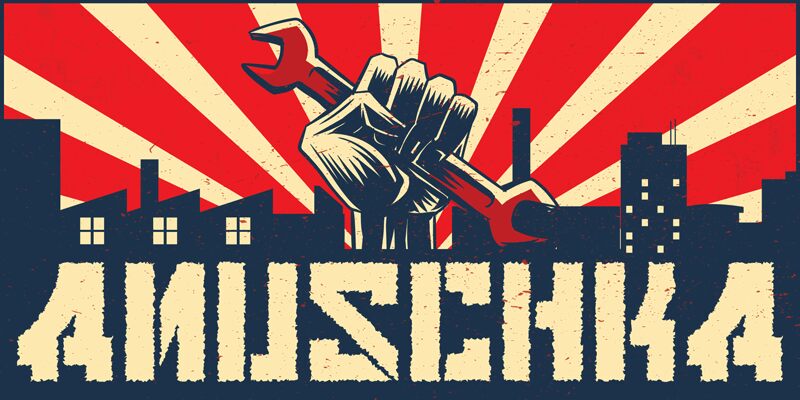
Anuschka Italic, designed by Anomali Creative, is a bold and striking font that perfectly captures the essence of faux Russian typography. With its Faux Cyrillic style, this font is ideal for various projects that aim to evoke the atmosphere of Eastern Europe, the Soviet Union, or Russia.
Whether you're designing book covers, film titles, comic book lettering, artwork for computer games, or product packaging with an Eastern European theme, Anuschka Italic will take your designs to new heights. Its bold weight and distinctive faux Russian style will ensure that your projects stand out and create a captivating visual experience.
Add a touch of authenticity and intrigue with Anuschka Italic – the ultimate choice for all your faux Russian design needs.
This Font is a Faux Cyrillic Font